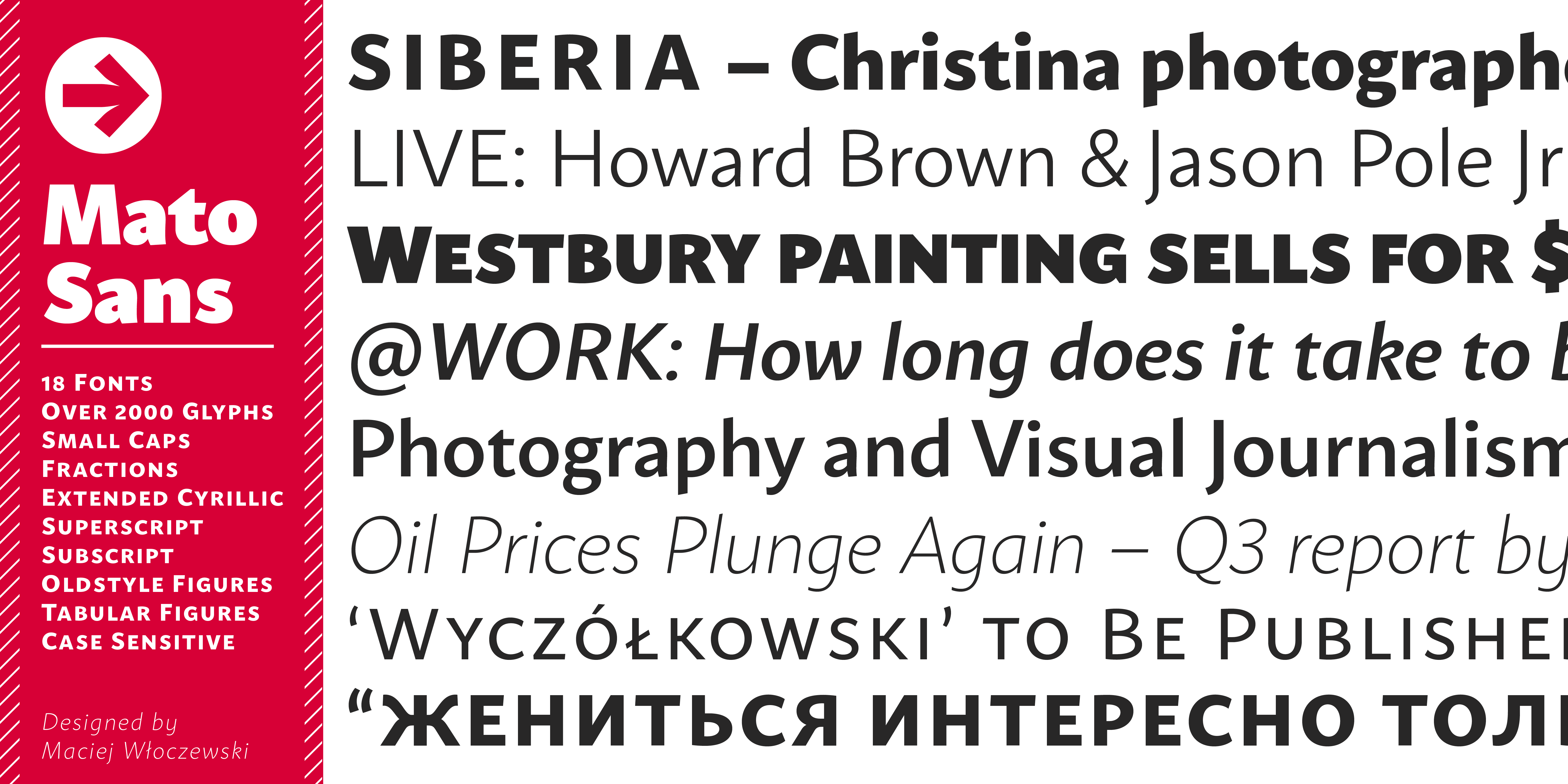
Mato Sans Font is perfect for modern web design, mobile applications, brand identity projects, logo design, packaging, editorial layouts, and digital marketing materials. Its clean geometric structure makes it ideal for corporate presentations, social media graphics, and user interface design.
Mato Sans Font is exciting because it combines contemporary minimalism with exceptional readability across all digital platforms. Its carefully crafted letterforms ensure optimal legibility at any size, while its modern aesthetic appeals to today's design-conscious audiences. The font's versatility allows designers to create professional, sophisticated layouts that stand out in crowded digital spaces.
Mato Sans Font family includes multiple weights ranging from Ultra Light to Black, with corresponding italic versions. The family typically features Light, Regular, Medium, Semibold, Bold, and Extrabold weights, providing designers with comprehensive typographic flexibility for hierarchical text organization and creative expression.